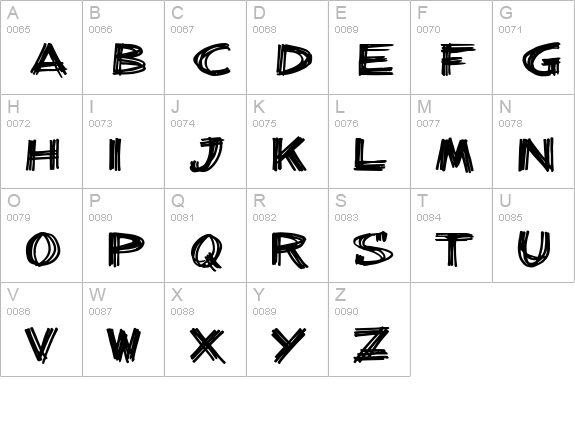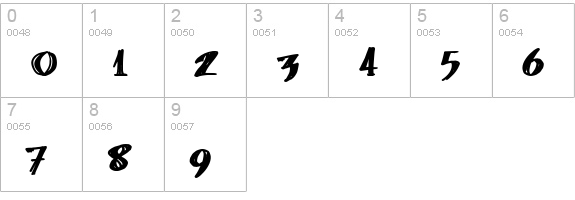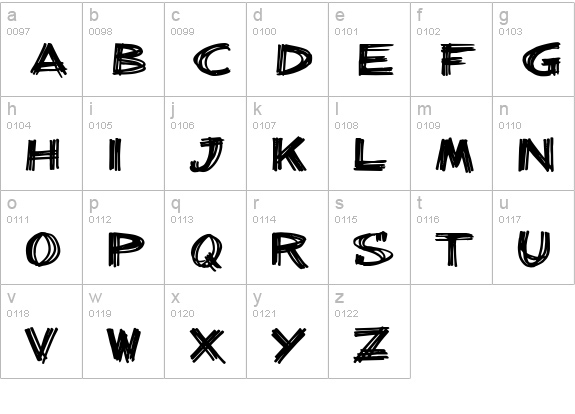
Introducing billieBarred font – a captivating and versatile typeface that exudes a unique charm and modern elegance. With its sleek lines and distinctive flair, billieBarred is perfect for adding a touch of sophistication to any design project. This font features a stylish blend of classic and contemporary elements, making it suitable for a wide range of applications. What sets billieBarred font apart is not only its impeccable design but also the fact that it is available for free download at FontsMarket.com. This means that you can easily access this stunning font without any cost, allowing you to elevate your creative projects without breaking the bank. Whether you're designing a logo, crafting a website, or creating eye-catching marketing materials, billieBarred font is sure to make a lasting impression. Embrace the elegance and versatility of this font today and take your designs to the next level with billieBarred.